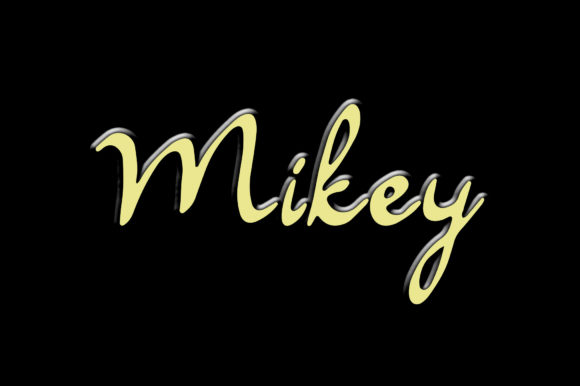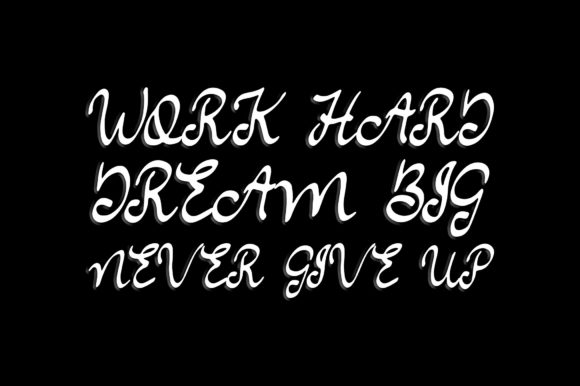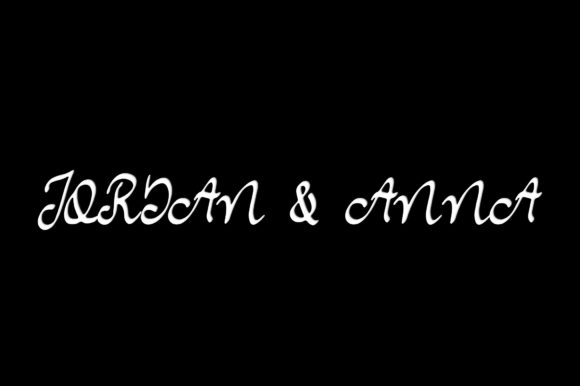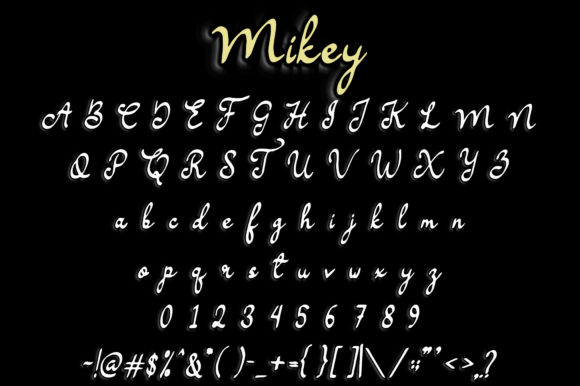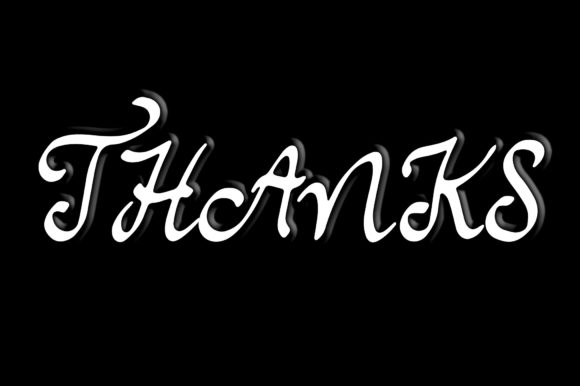
Mikey Font
About Mikey Font
Mikey is a chic, refined script font that emanates sophistication and elegance. Its stylish alternates and ligatures make this font the perfect match for any project.